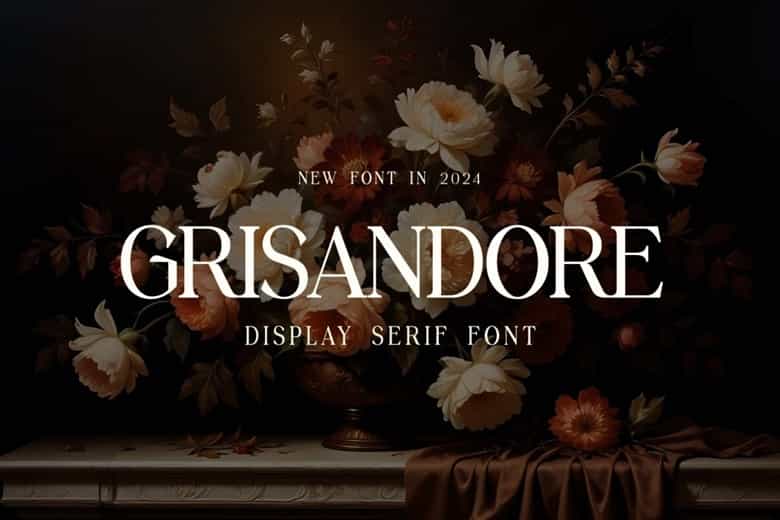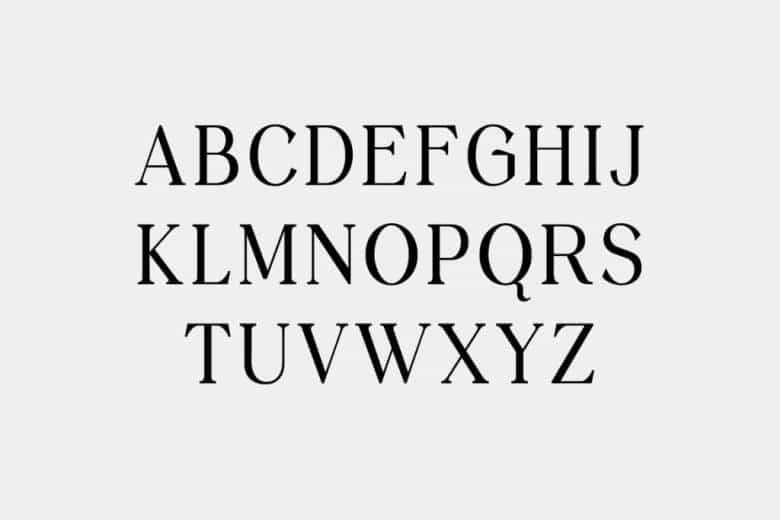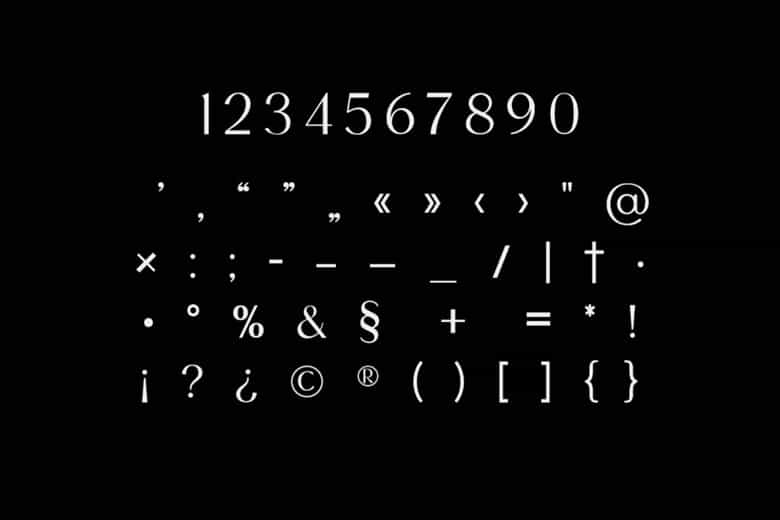
Grisandore is a new display serif font. It’s looks very beautiful, modern, and stylish. It is perfect for logos, product packaging, header, poster, merchandise, social media & greeting cards.